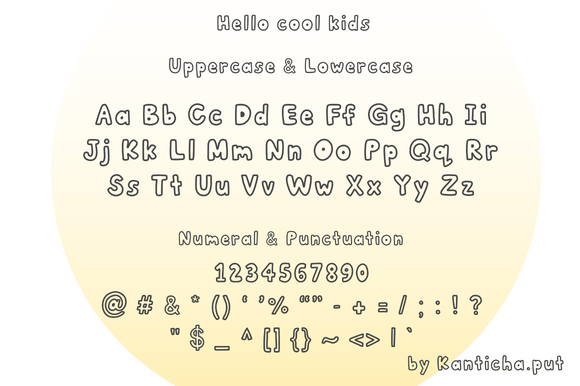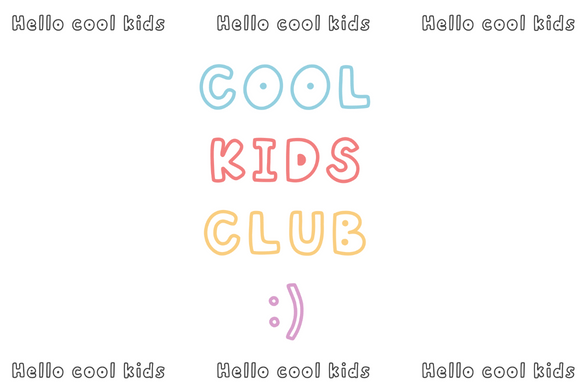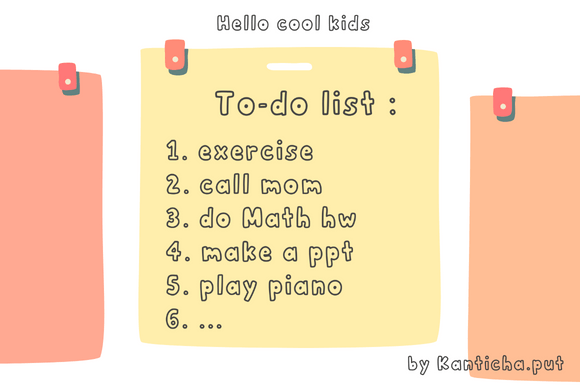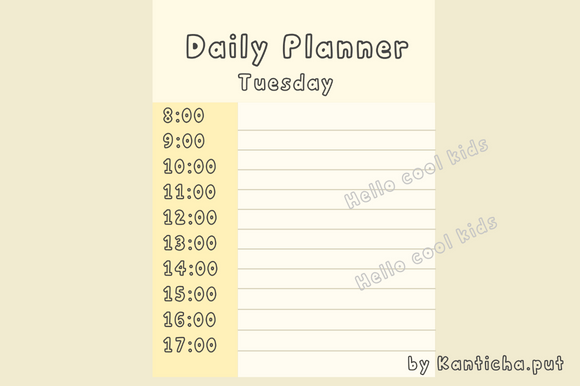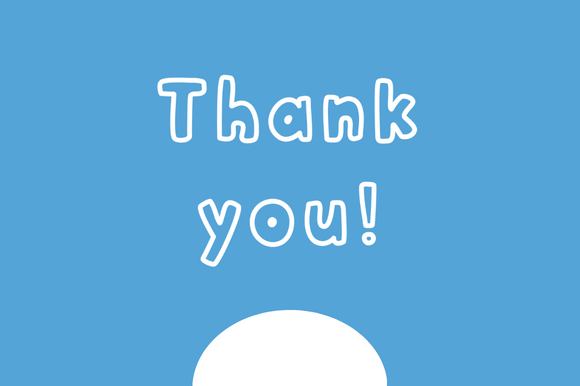
Hello Cool Kids Font: Add a Touch of Whimsy to Your Designs
Hello cool kids is a cute and lovely handwritten font perfect for your favorite projects. This typeface will brighten up all the designs you’re working on. If you’re a designer, crafter, or DIY enthusiast looking for a unique and playful font to add a personal touch to your work, then Hello Cool Kids is the perfect choice.
What Makes Hello Cool Kids Font So Special?
Hello Cool Kids font is a carefully crafted handwritten typeface that exudes a sense of fun and playfulness. Its unique and irregular strokes give it a charming, one-of-a-kind feel that’s sure to make your designs stand out. Whether you’re working on a creative project, a branding campaign, or simply want to add some personality to your digital content, this font is sure to impress.
Key Features of Hello Cool Kids Font
- Cute and Lovely Handwritten Style: Hello Cool Kids font boasts a sweet and endearing handwritten style that’s perfect for designs that require a personal touch.
- Playful and Whimsical: The font’s irregular strokes and unique letterforms give it a playful and whimsical feel that’s sure to capture the attention of your audience.
- Perfect for Various Projects: From creative projects and branding campaigns to digital content and DIY crafts, Hello Cool Kids font is versatile enough to be used in a wide range of applications.
- Easily Readable: Despite its playful nature, Hello Cool Kids font remains easily readable, making it perfect for both digital and print designs.
How to Use Hello Cool Kids Font in Your Designs
Incorporating Hello Cool Kids font into your designs is easy. Here are a few ideas to get you started:
- Creative Projects: Use Hello Cool Kids font to add a personal touch to your creative projects, such as handmade cards, scrapbooking, and mixed media art.
- Branding Campaigns: Add a playful and whimsical touch to your branding campaigns, including logos, packaging, and advertising materials.
- Digital Content: Use Hello Cool Kids font to create eye-catching digital content, such as social media graphics, blog posts, and email newsletters.
- DIY Crafts: Incorporate Hello Cool Kids font into your DIY crafts, such as handmade jewelry, decorations, and gifts.
Tips for Pairing Hello Cool Kids Font with Other Fonts
To get the most out of Hello Cool Kids font, consider pairing it with other fonts that complement its playful and whimsical nature. Here are a few suggestions:
- Pair with a Serif Font: Pair Hello Cool Kids font with a serif font, such as Times New Roman or Georgia, to create a nice contrast between playful and traditional.
- Combine with a Script Font: Combine Hello Cool Kids font with another script font, such as Pacifico or Great Vibes, to create a cohesive and elegant look.
- Use with a Bold Font: Use Hello Cool Kids font alongside a bold font, such as Arial Black or Impact, to create a striking contrast between light and heavy.
Hello Cool Kids font is a unique and playful typeface that’s perfect for designers, crafters, and DIY enthusiasts looking to add a personal touch to their work. With its cute and lovely handwritten style, playful and whimsical feel, and versatility, this font is sure to brighten up all your designs. So why not give Hello Cool Kids font a try and see how it can elevate your creative projects?